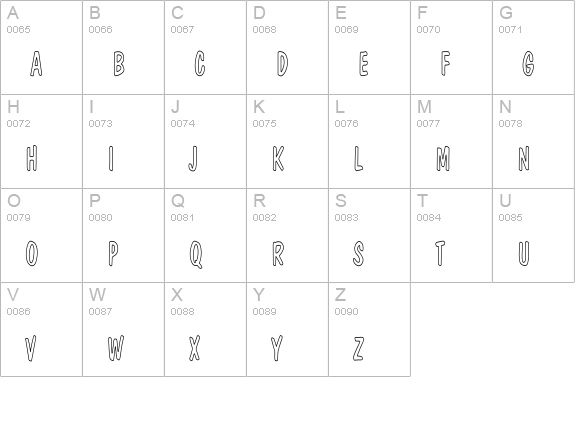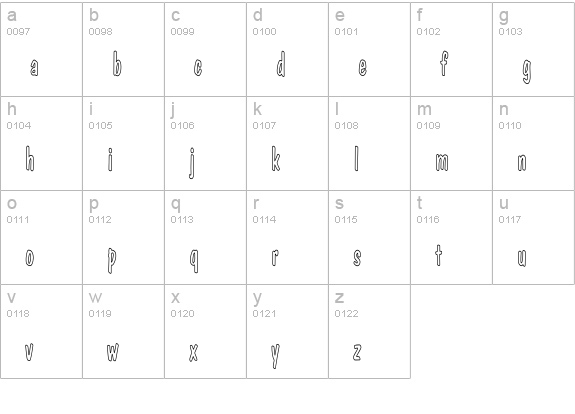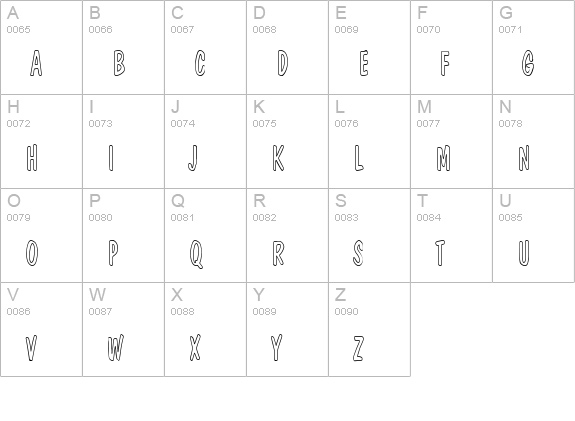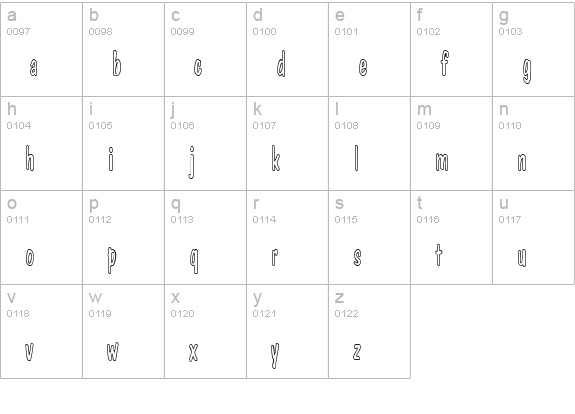
DomCasual-ThinHC is a modern and stylish font that exudes sophistication and elegance. With its delicate and thin letterforms, this font is perfect for adding a touch of class to any design project. Whether you're creating invitations, branding materials, or social media graphics, DomCasual-ThinHC will make your text stand out. What's even better is that DomCasual-ThinHC is available for free download at FontsMarket.com. This means you can easily access this beautiful font and use it in your projects without any cost. Don't miss out on the opportunity to enhance your designs with this stunning typeface - download DomCasual-ThinHC now and elevate your creations to the next level.